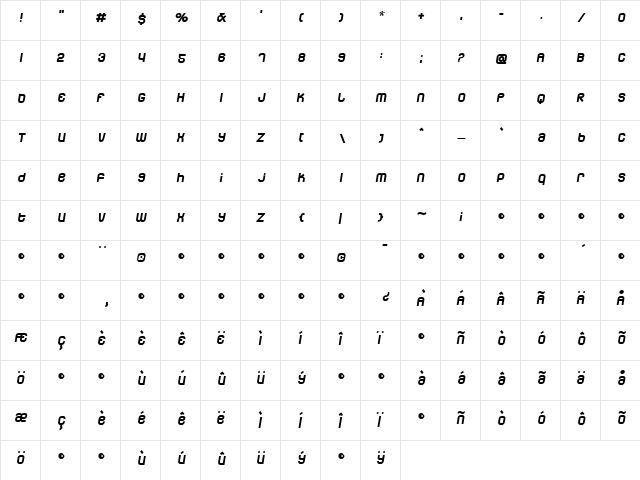
Dunebug 45MPH Regular
Design Context for Dunebug 45MPH Typeface
Dunebug 45MPH offers clean, dependable letterforms without strong stylistic allegiance, making it a practical choice for designers who need flexibility.
Pro Tip: Use Dunebug 45MPH in both headline and body roles to test its range before committing to a single application.